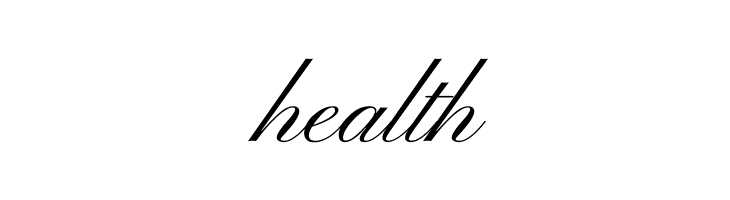
An elegant script font with flowing, cursive letterforms and ornate details.
An elegant and decorative script font with flowing, cursive letterforms.